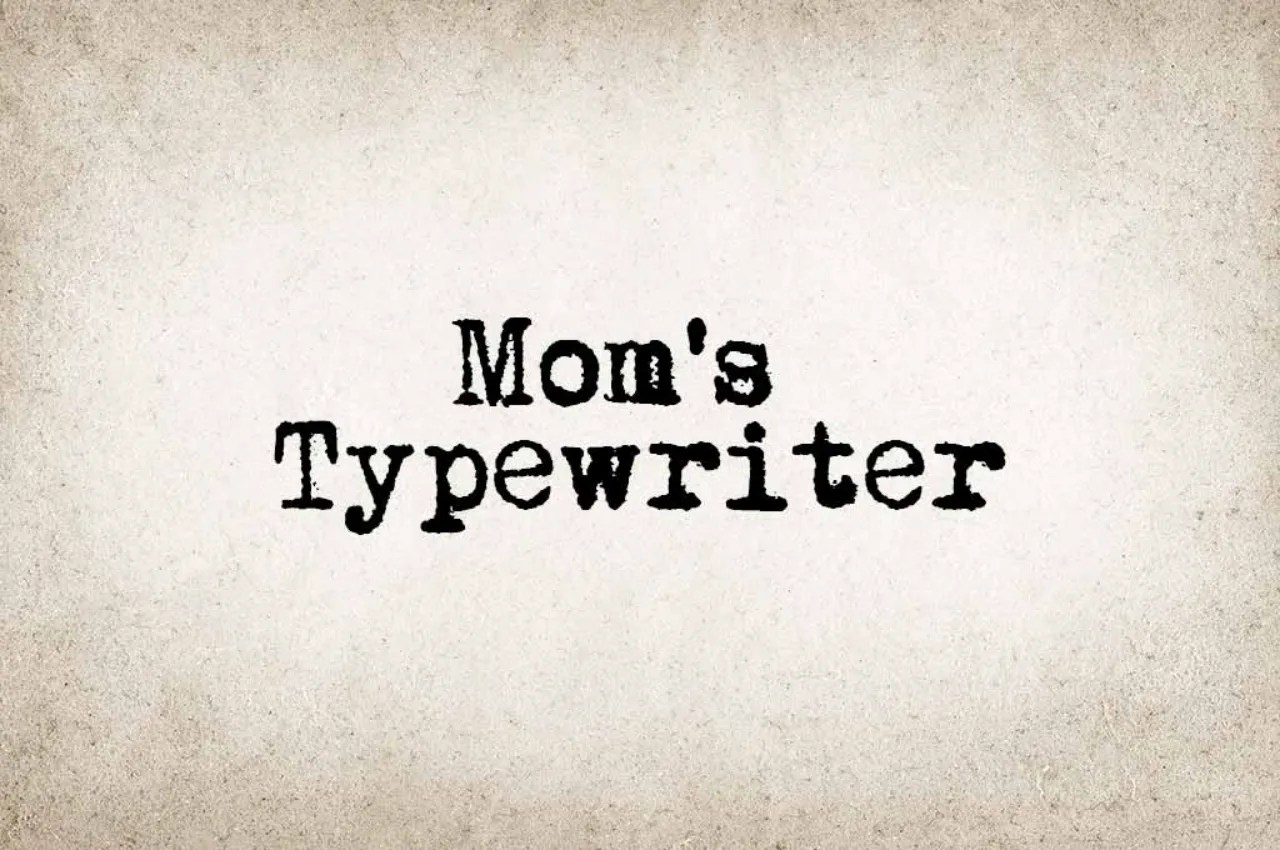
Mom's Typewriter Font Generator . Moms typewriter font is free for both personel and commercial usages. Select which font you prefer by clicking on one of the four ‘abc’ boxes, or. You may need to extract the.ttf files from a.zip archive file before installing the font. Moms typewriter font is a fancy, typewriter font designed by christoph mueller. Use the text generator tool below to preview mom's typewriter font, and create appealing text. 2,247,761 downloads (593 yesterday) 19. Our generator has four different typewriter fonts that you can use. Free download of mom's typewriter actual font. Mom's typewriter by christoph mueller. Free download of mom's typewriter font. The moms typewriter font has been downloaded 161,806 times. Download and install the moms typewriter font by christoph mueller.
Mom's Typewriter Font Generator Moms typewriter font is free for both personel and commercial usages. Moms typewriter font is free for both personel and commercial usages. Moms typewriter font is a fancy, typewriter font designed by christoph mueller. Our generator has four different typewriter fonts that you can use. Use the text generator tool below to preview mom's typewriter font, and create appealing text. Free download of mom's typewriter actual font. Select which font you prefer by clicking on one of the four ‘abc’ boxes, or. Free download of mom's typewriter font. Download and install the moms typewriter font by christoph mueller. 2,247,761 downloads (593 yesterday) 19. Mom's typewriter by christoph mueller. The moms typewriter font has been downloaded 161,806 times. You may need to extract the.ttf files from a.zip archive file before installing the font.